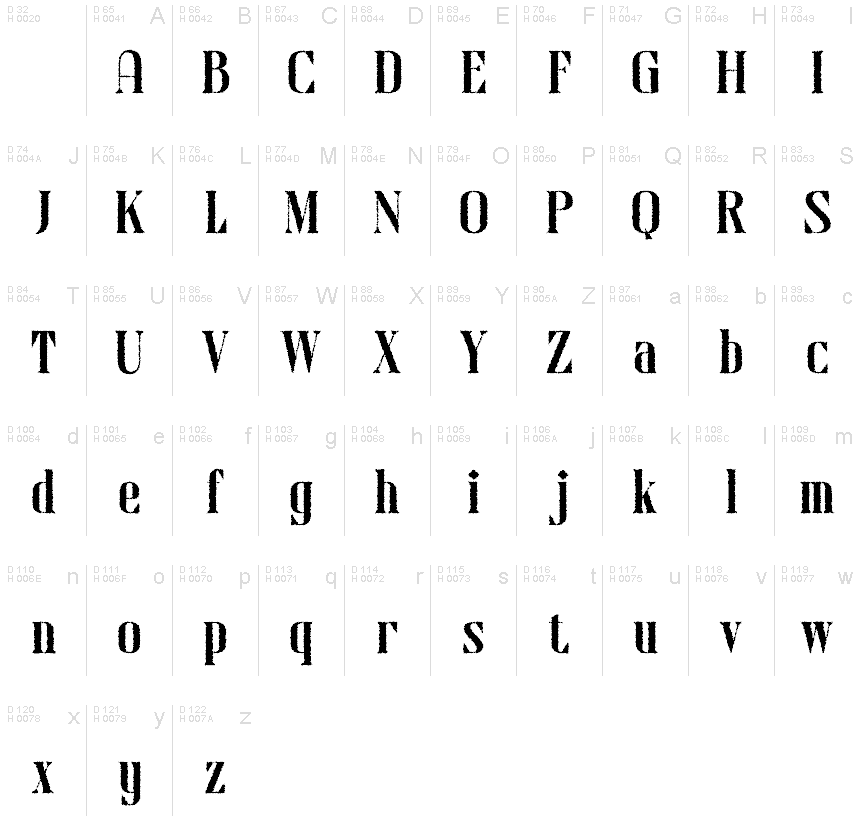
Valtine Rough Demo Regular
Valtine Rough font by Craft Supply Co is a vintage-inspired distressed font with rugged textures and gothic influences. A dramatic feel emerges from this eroded alphabet, adding a uniqueness and a graphical twist to your designs. While condensed in width, the characters are developed with perfect balance and proportions in mind.
Designs related to movies, comics, video games, or cartoons can benefit from these effects. The font can be found within custom book covers, posters, apparel items (t-shirts), packaging stickers/boxes/bags for beauty products or conceptual food brands. Other uses include café/restaurant identities or menus.